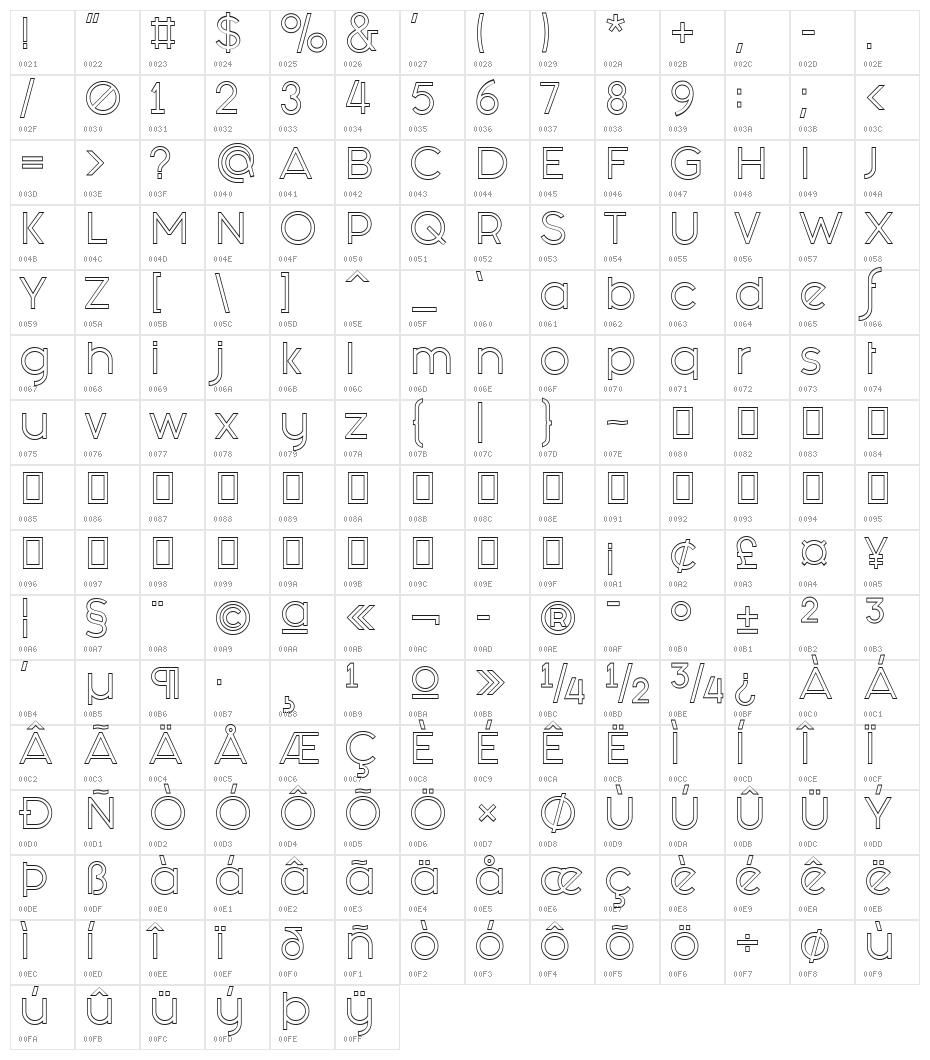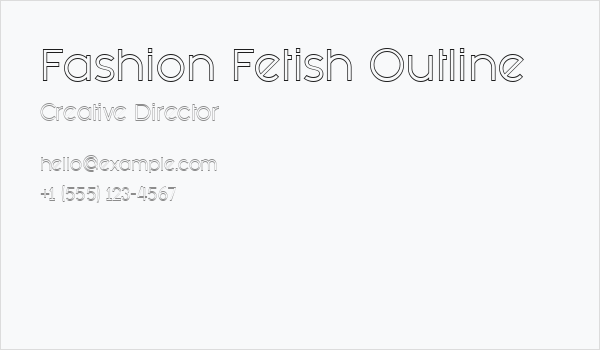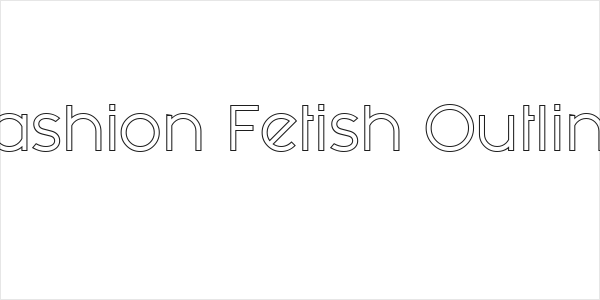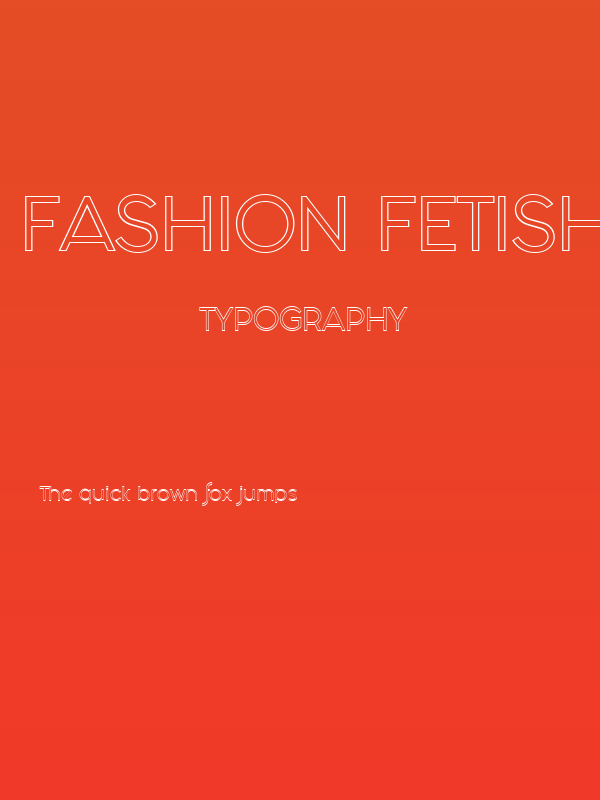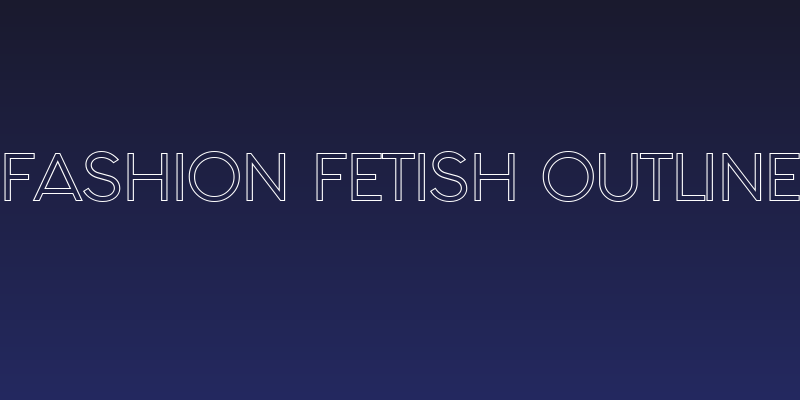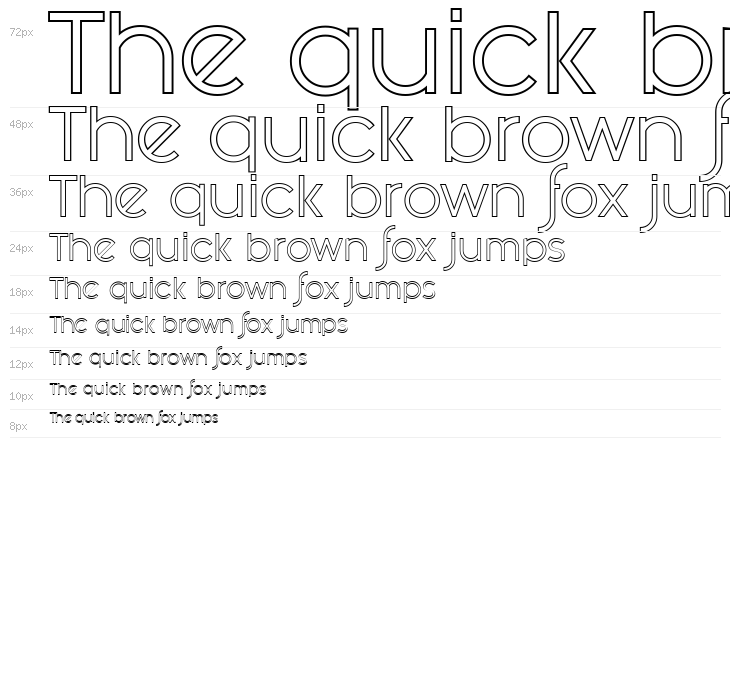
Fashion Fetish Outline Font
Fashion Fetish Outline Description
This font features a modern, geometric outline style with clean, precise lines. Each character is crafted with a consistent stroke width, creating a uniform and cohesive appearance. The uppercase and lowercase letters maintain a balanced proportion, while the numerals and special characters are designed to complement the alphabet seamlessly. The overall aesthetic is sleek and contemporary, making it suitable for a variety of design applications. Its outline nature adds a unique touch, allowing for creative layering and color play in graphic design projects.
| Proposed Projects | Ideal for fashion branding, editorial design, posters, and digital media where a modern and stylish look is desired. |